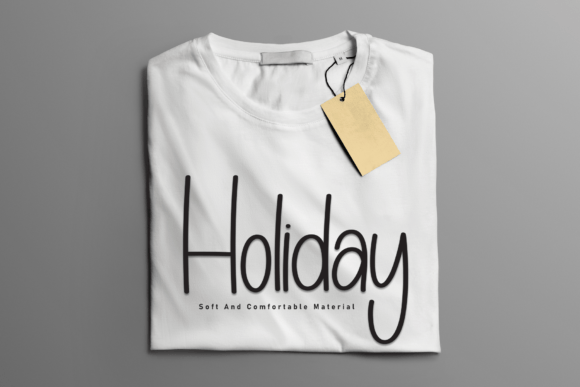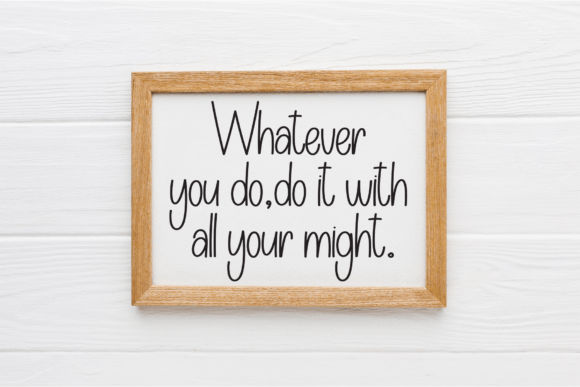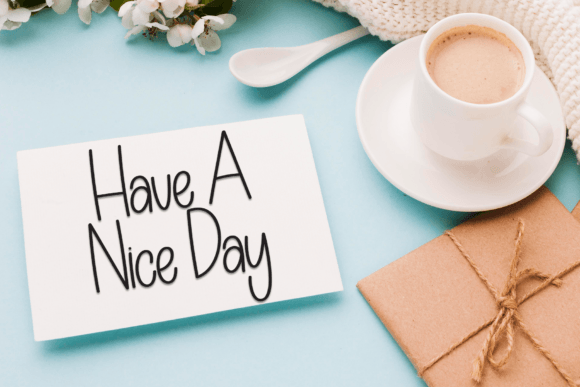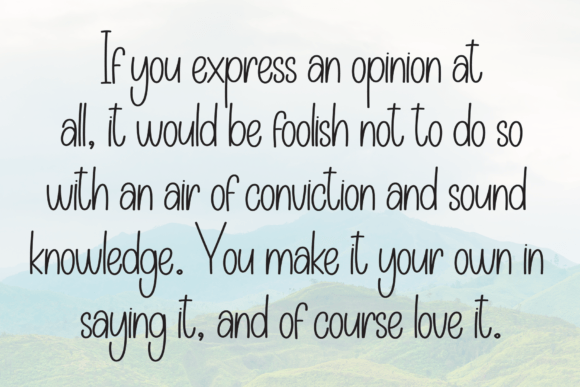
Handwriting Font
Handwriting is a fun and whimsical font that looks like it was written by hand, with playful curls and loops that give it a cheerful and friendly feel. It’s perfect for adding a personal touch to your projects, making them look lively and unique.